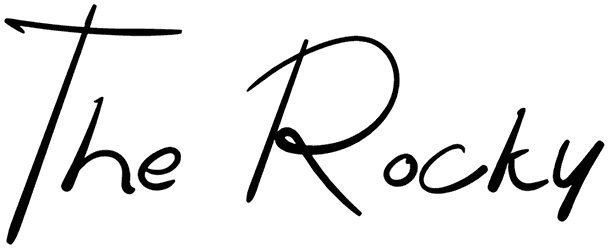
The Rocky Font
The Rocky is a lovely handwritten font with a relaxed look and balanced connections that has a casual feel with a personal touch. This font has a real classic feel and is on the border between real cursive and fancy script fonts.
There are no additional complications that take away its readability. As a result, adding this teacher font to titles, invitations, and greeting cards can bring an intimate and elegant style throughout designs and make your slogan scream in the audience’s ears.